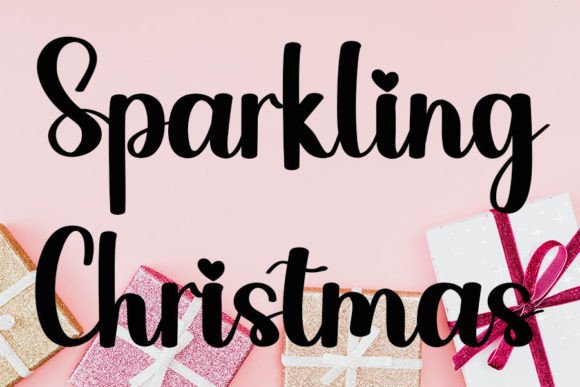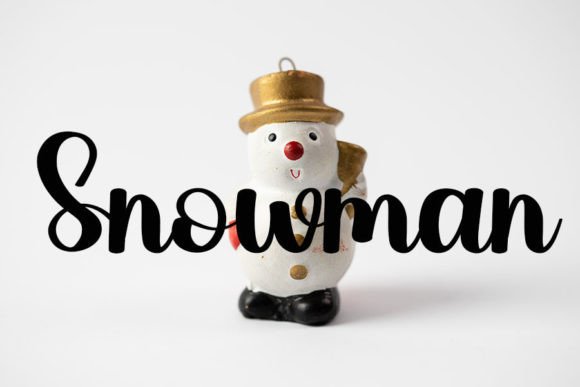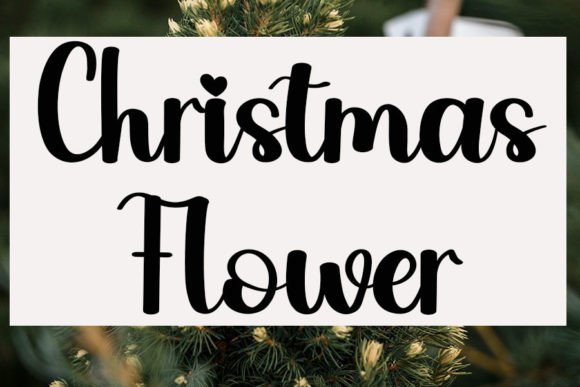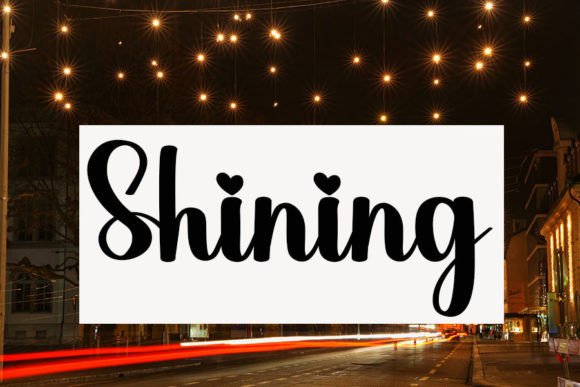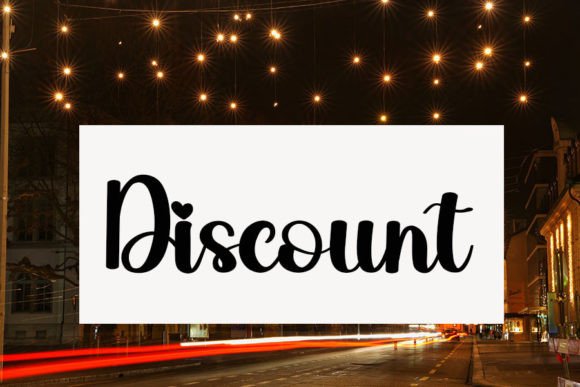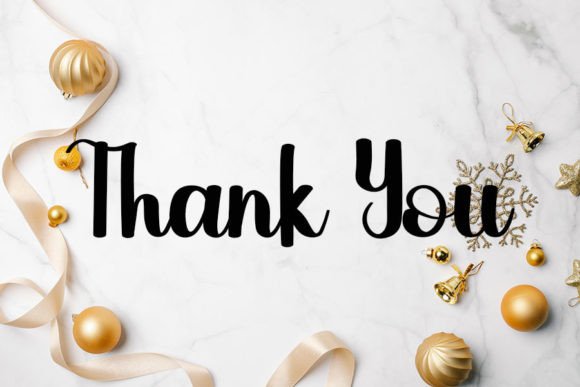
About Sparkling Font
The Sparkling font is a charming handwritten script that brings a sense of beauty, warmth, and sophistication to your creative work. With its elegant curves and graceful strokes, this typeface is perfect for adding a stylish handwritten feel to any design. It is neat, timeless, and uniquely expressive.
Inspired by natural handwriting and calligraphy, Sparkling was created for designers who want to blend creativity with class. It offers just the right amount of flair without overwhelming your visuals. Whether you need a font for wedding invitations or stylish branding, Sparkling delivers with distinction.
Why Choose Sparkling Font?
The Sparkling font stands out because of its refined balance and graceful letterforms. It captures attention with its fluid lines and effortless charm. When you incorporate this font into your project, you add a personal and memorable touch. Designers love it for its versatility and ease of use.
Wedding and event invitations
Greeting cards and thank-you notes
Elegant logos and product packaging
Quotes, posters, and prints
Social media content and blog titles
Whether you’re crafting digital content or printed materials, this font adapts beautifully.
Designed for Function and Style
Unlike overly stylized fonts that can be hard to read, Sparkling strikes the perfect balance between aesthetics and usability. Each character is carefully drawn to ensure consistent spacing and legibility. It works well in both small and large sizes, making it ideal for everything from body text to display headlines.
With multilingual support and standard ligatures, the Sparkling font delivers flexibility and a polished finish in every use. It’s suitable for both casual and formal design projects, offering seamless integration with your existing design assets.
The Sparkling font is more than just a handwritten typeface—it’s an expression of elegance and creativity. From logos to personal letters, it brings a timeless quality to every design. Its neat, flowing strokes make it an excellent choice for adding emotion and authenticity to your projects.